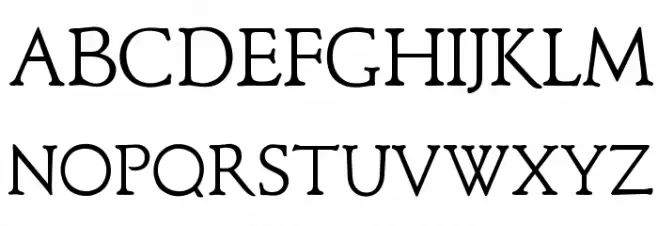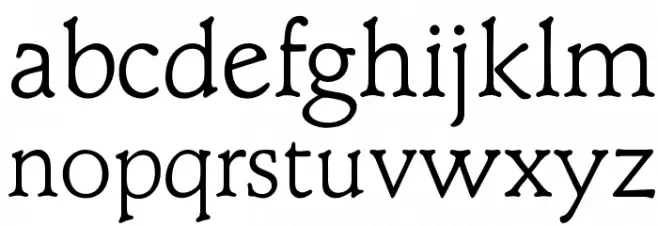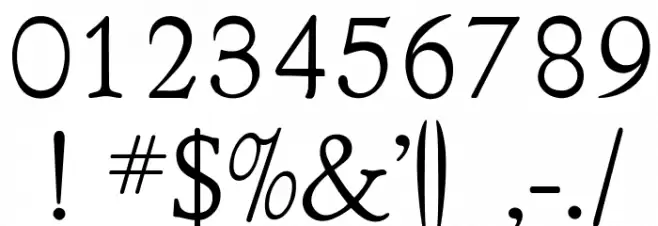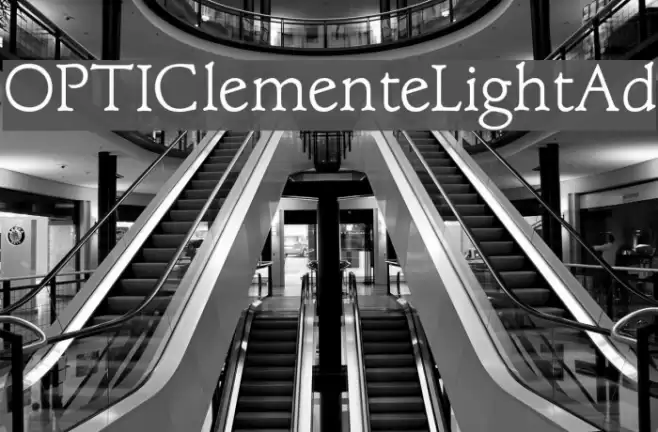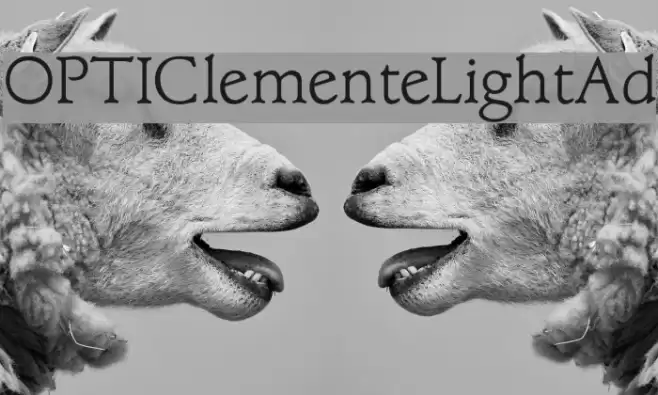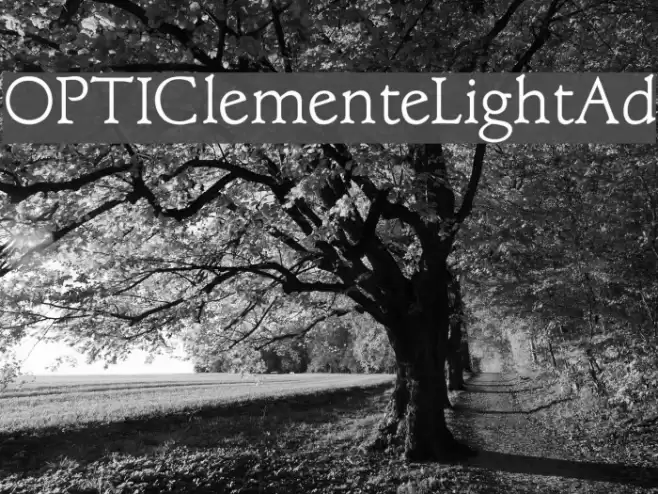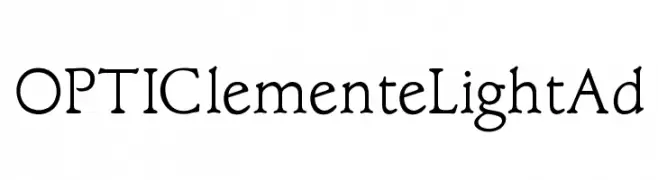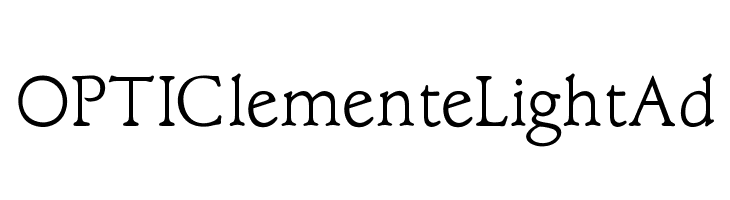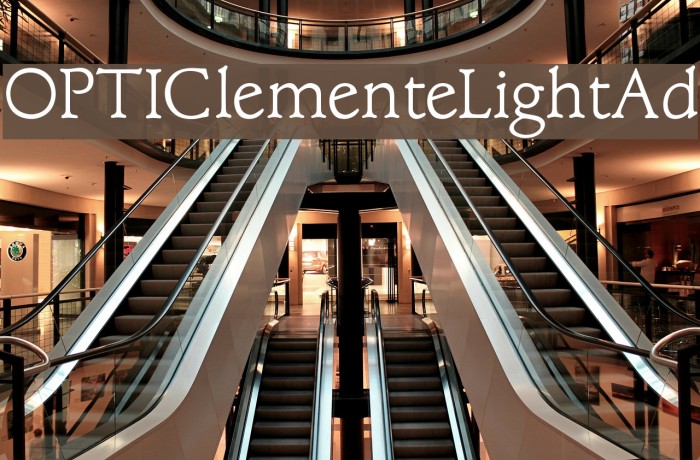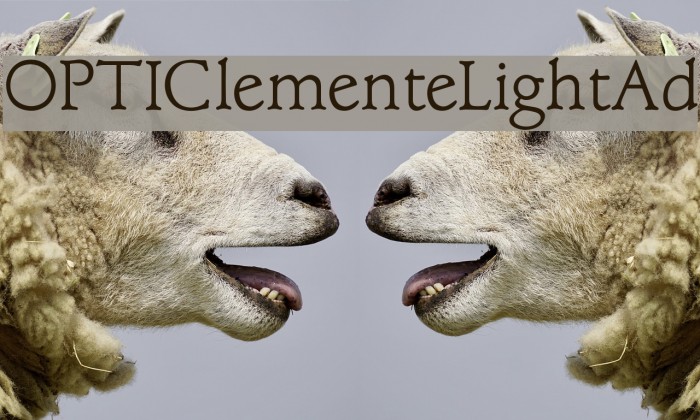
OPTIClementeLightAd
This font features a classic serif style with elegant and refined strokes. The uppercase letters are bold and commanding, while the lowercase letters maintain a consistent and harmonious flow. The numerals are clear and distinct, making them easily readable. Special characters are designed with a touch of sophistication, adding to the overall aesthetic appeal. The font's design is well-suited for projects that require a touch of tradition and formality, yet it retains a modern sensibility. Its balanced proportions and clean lines make it versatile for various applications.
A classic serif font with elegant strokes and balanced proportions.
- Proposed Projects: Ideal for book covers, formal invitations, branding materials, and editorial design.
- Category: Serif
- Weight: Light
- Overall Style: Classic